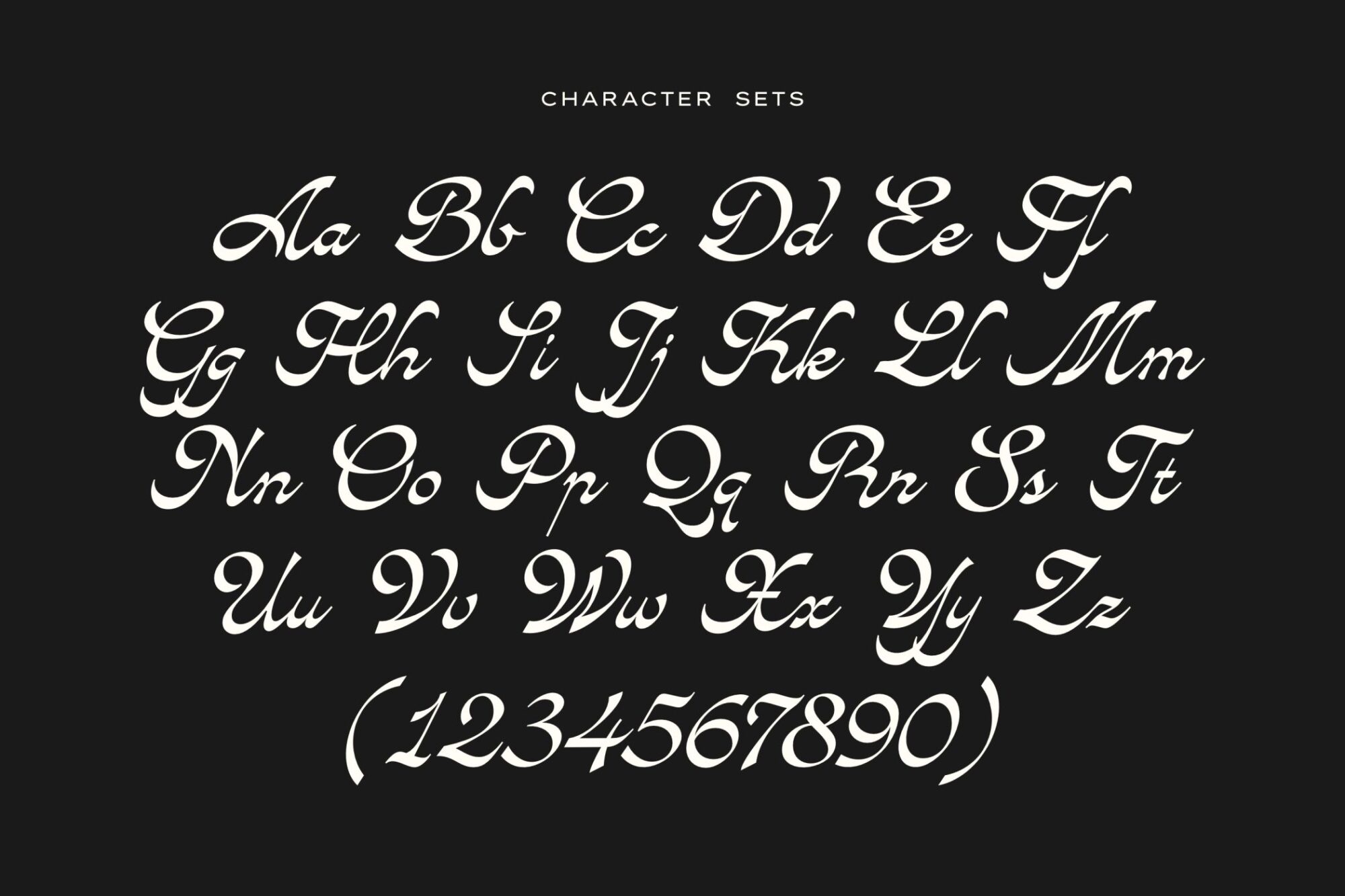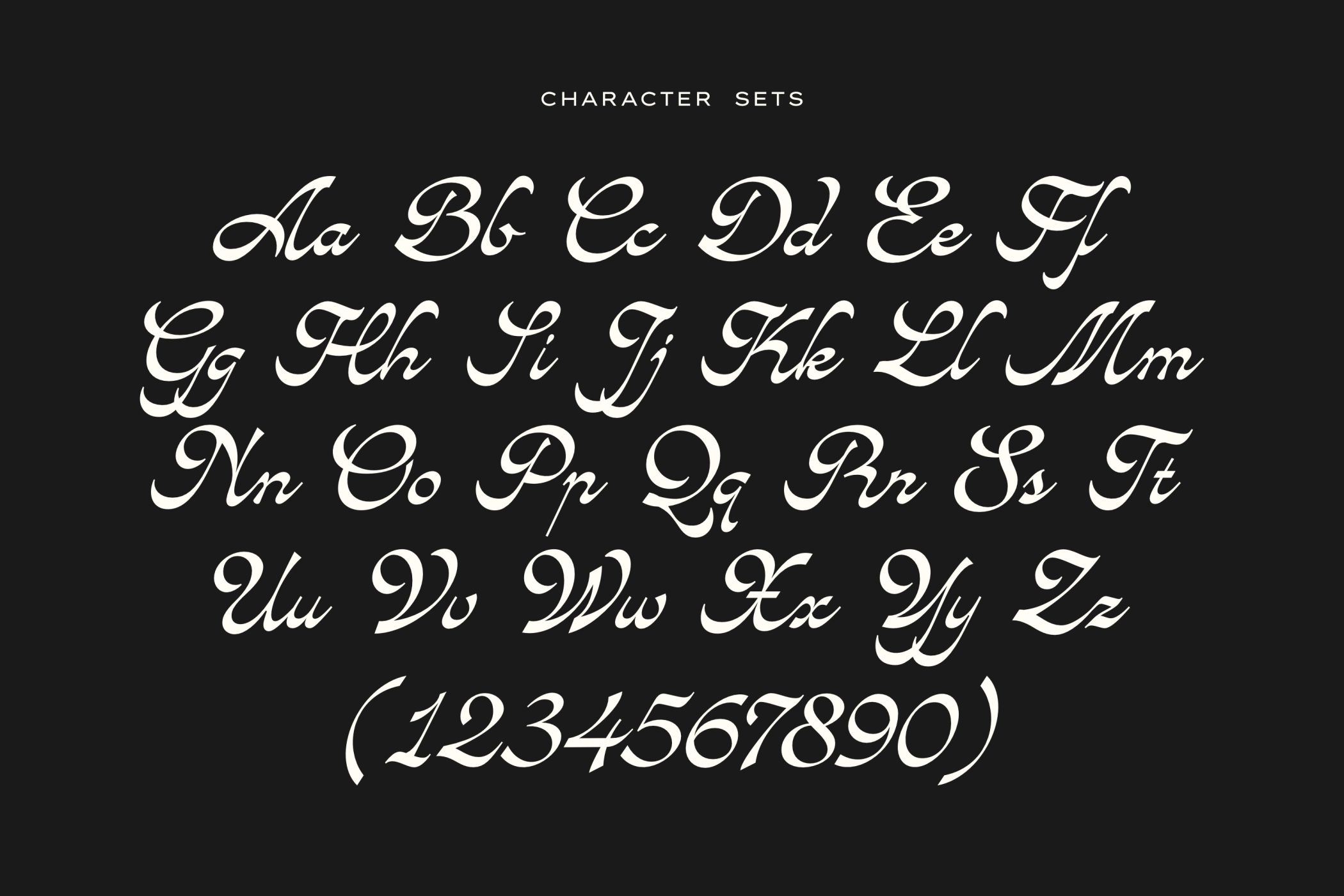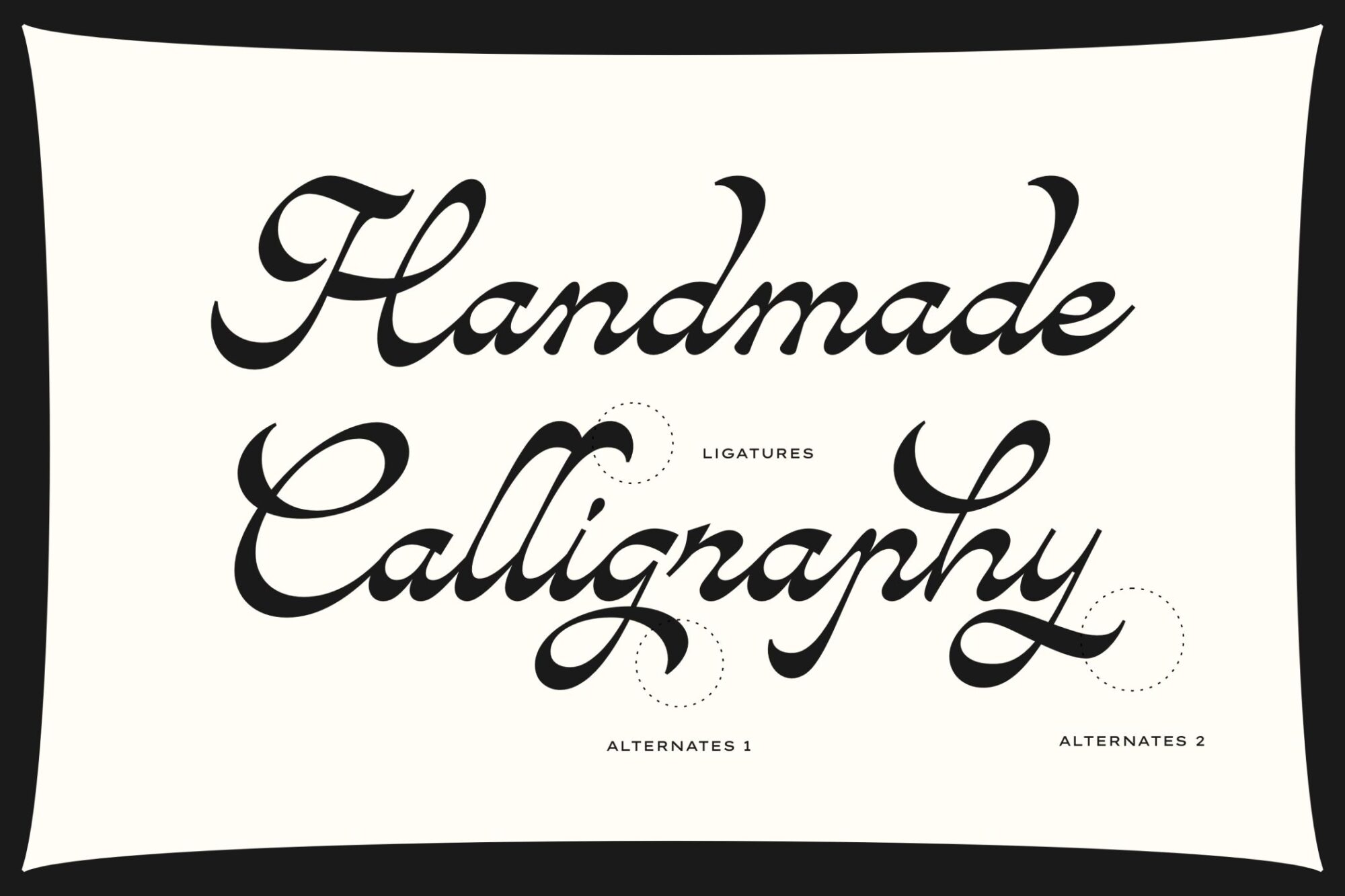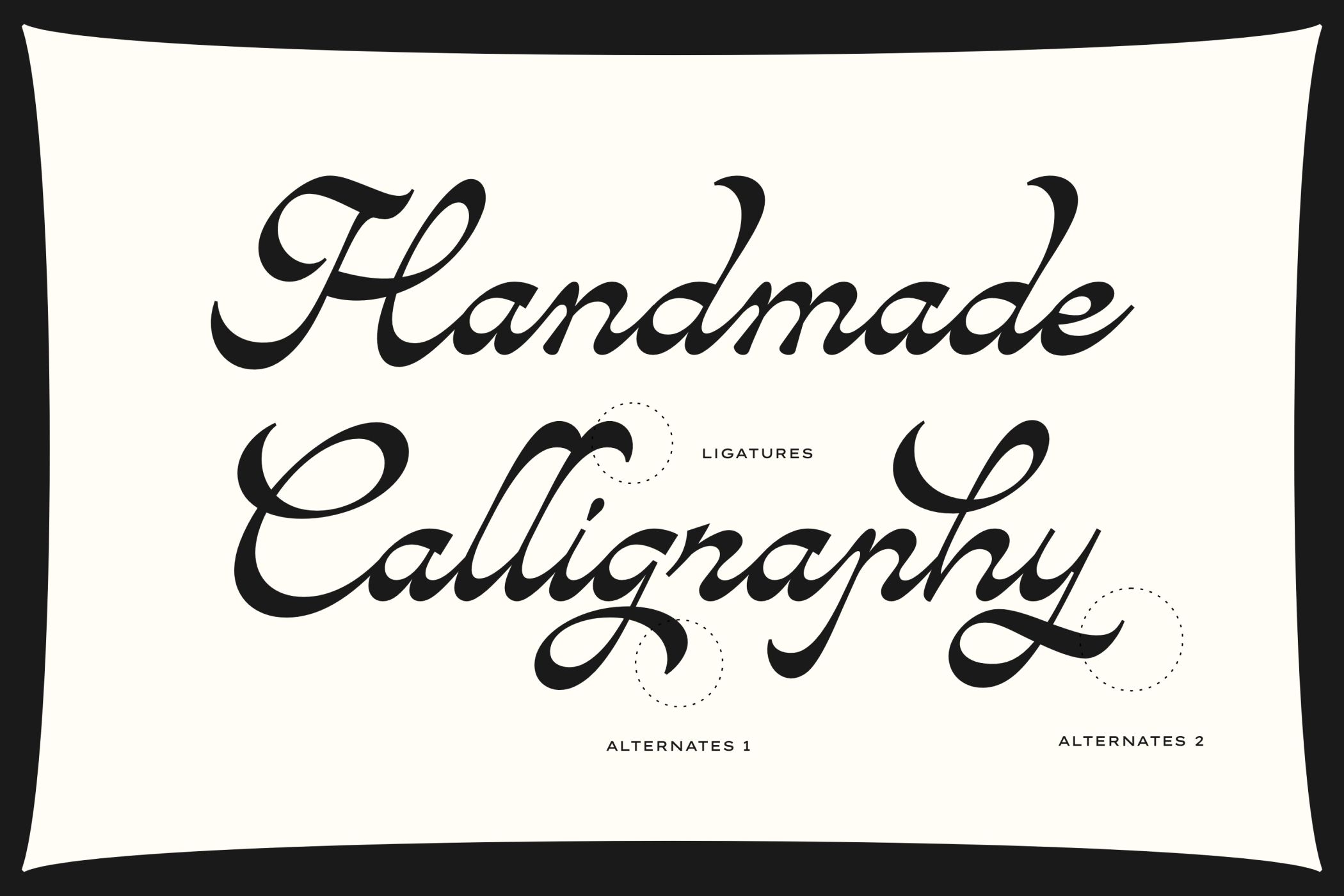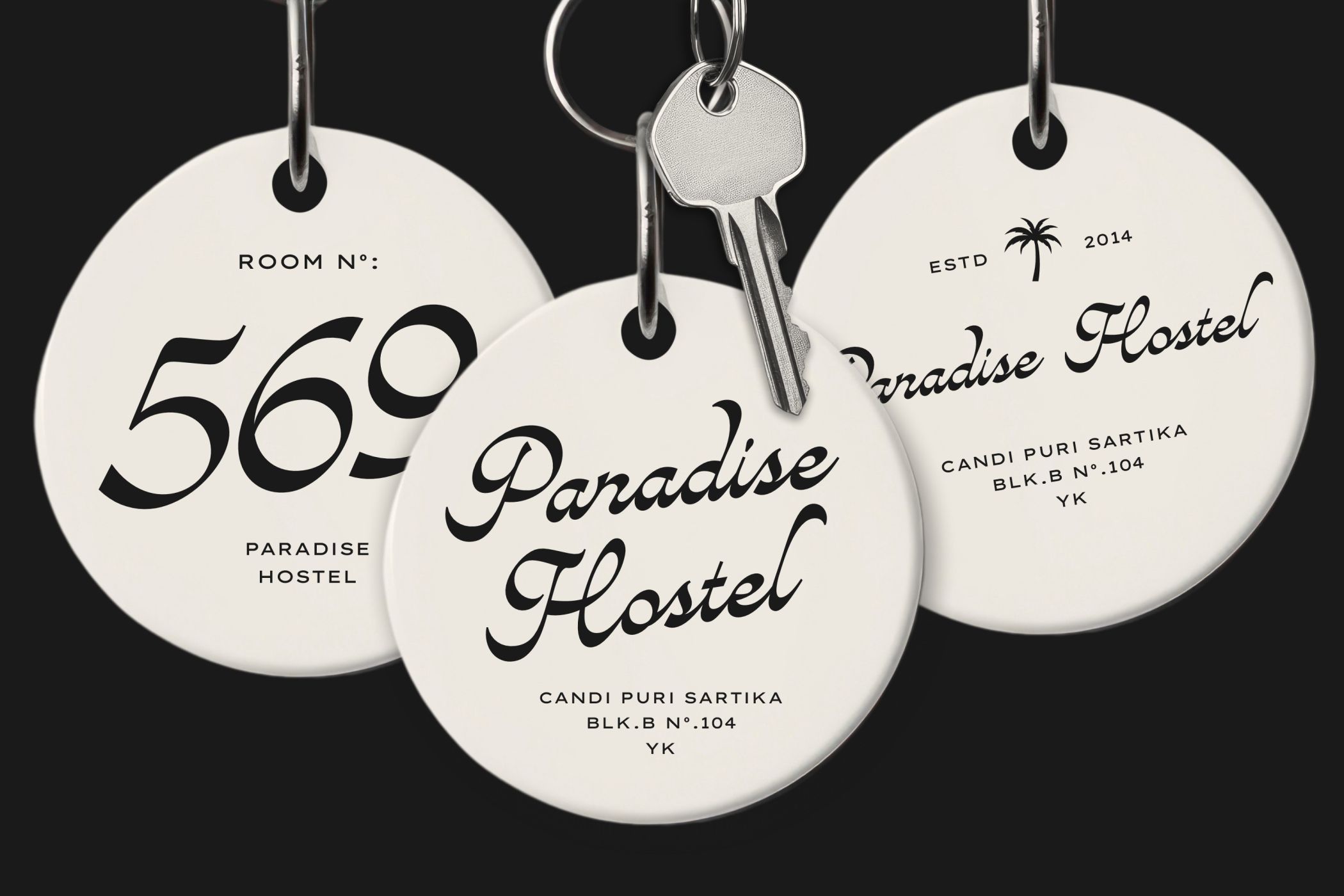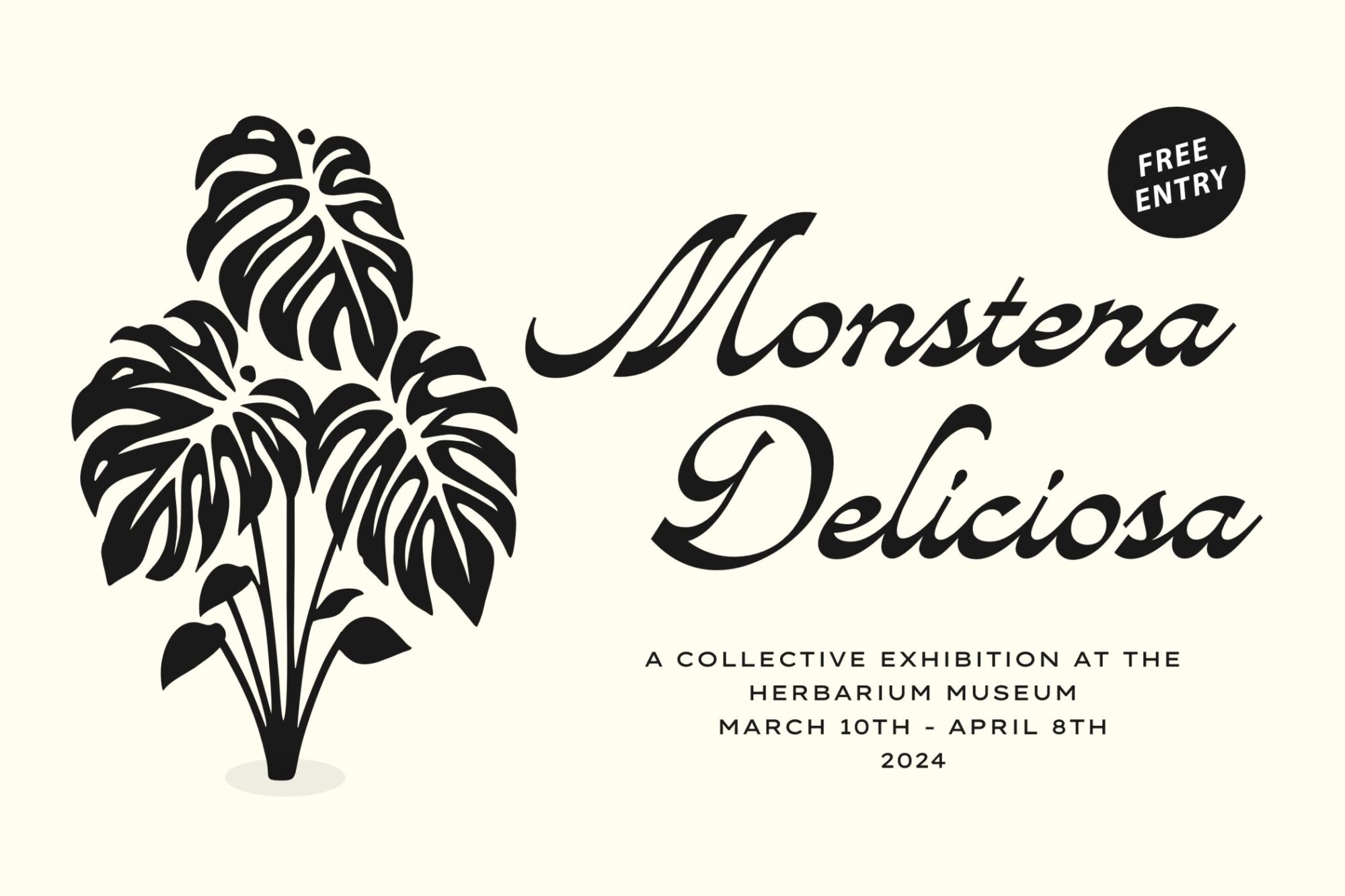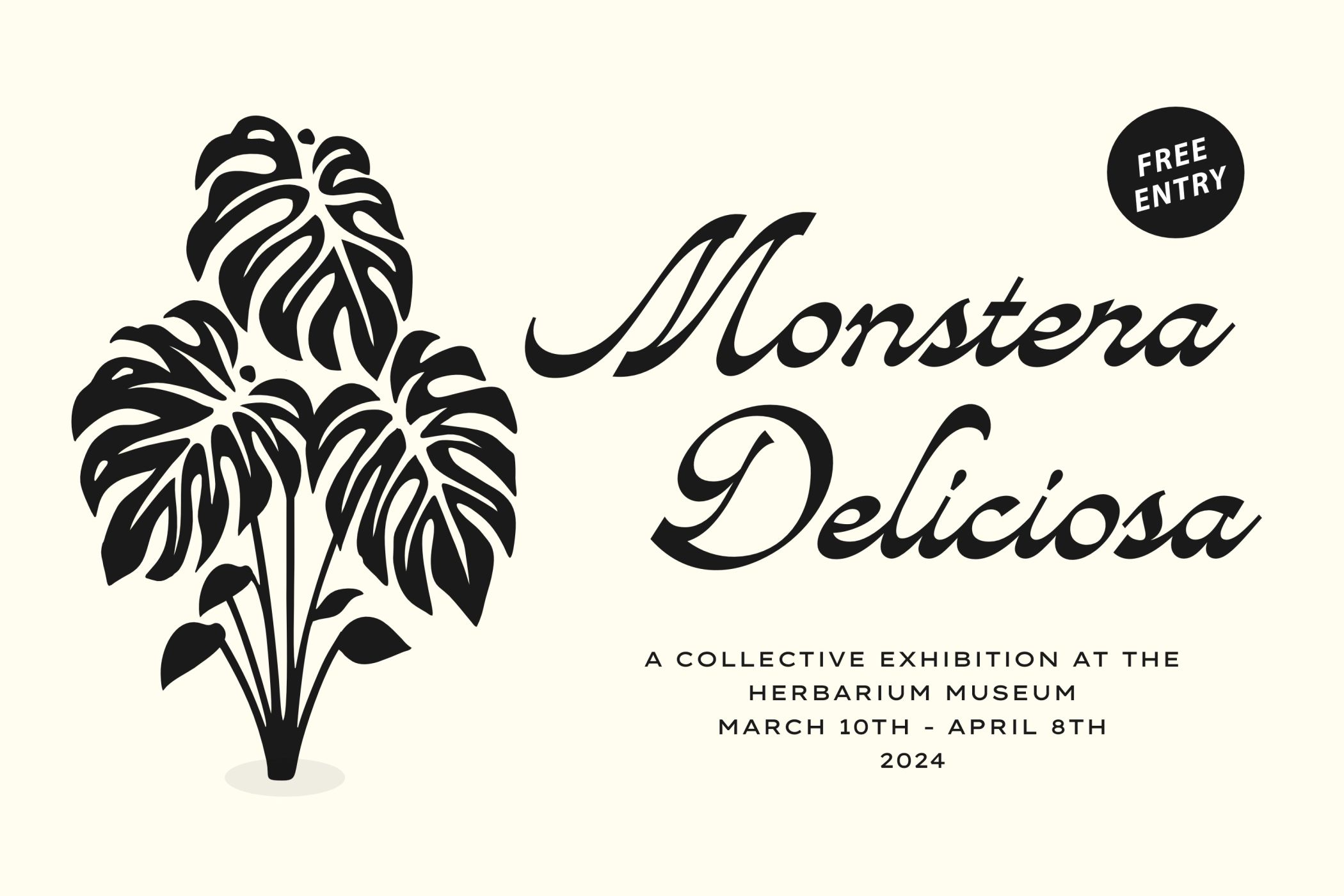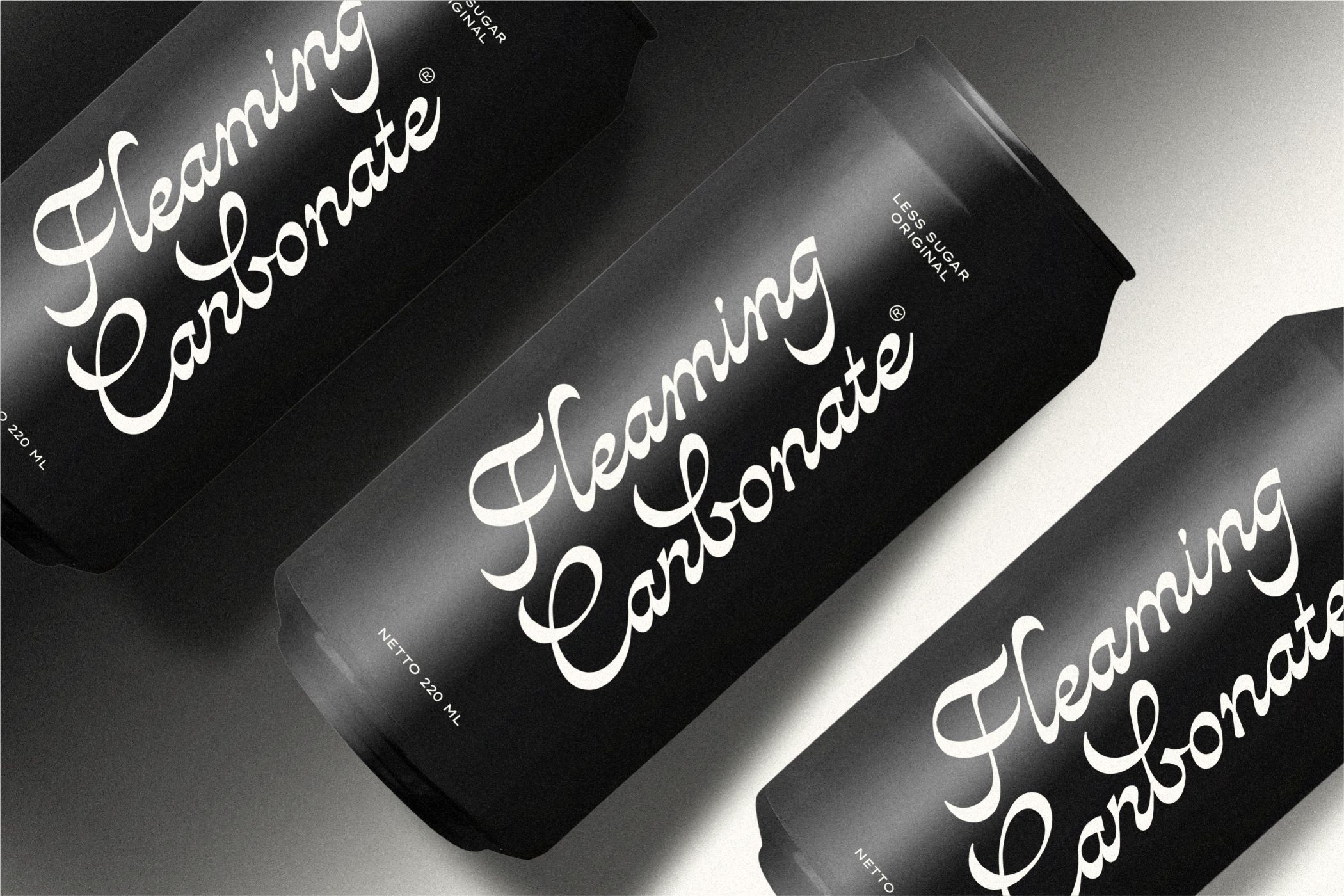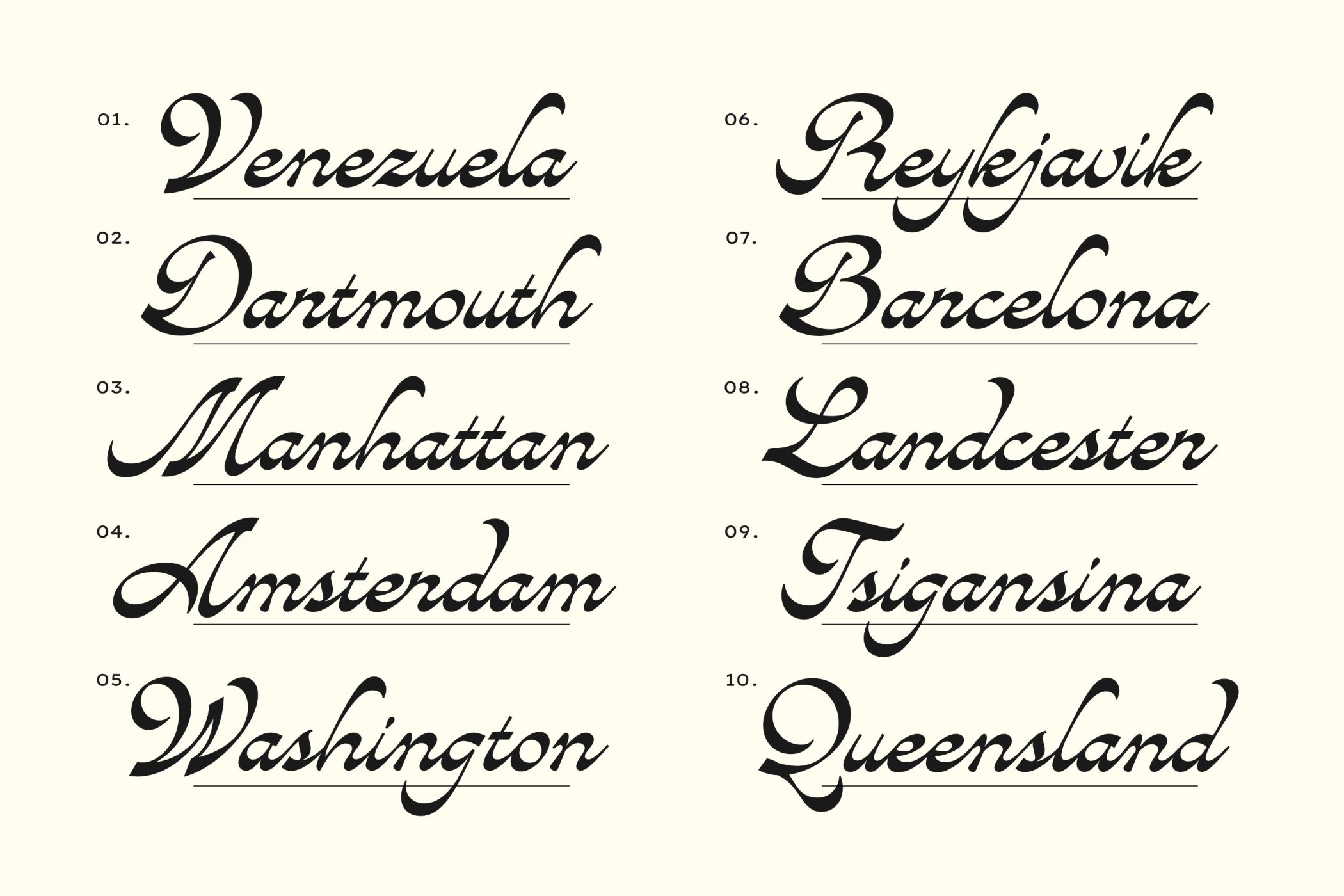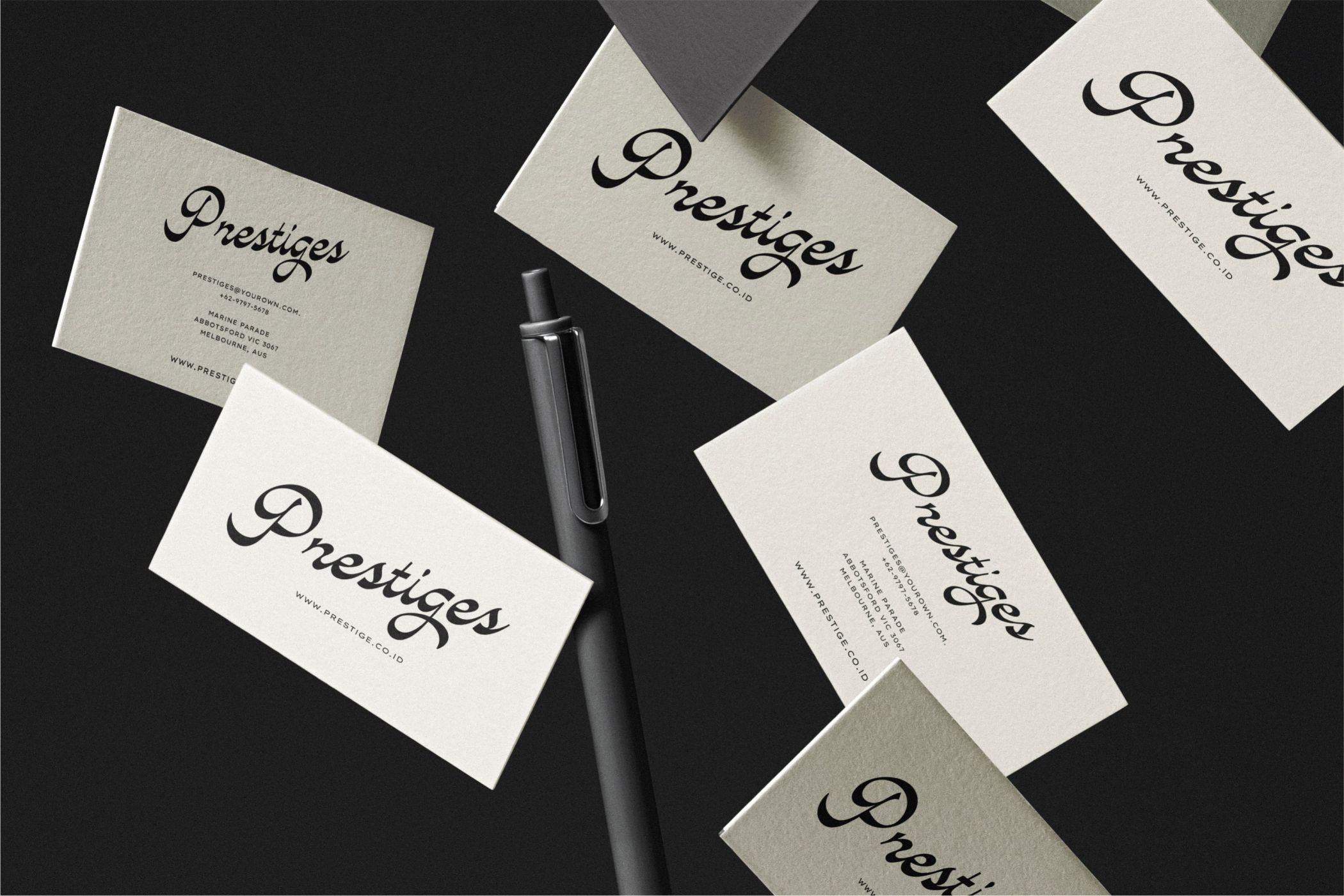
Avantgarde
Introducing, Avantgarde! A modern and stylish script font.
Included Alternates to add more stylistic looking Avantgarde is a versatile font,
perfect for Headline, Logo design, Clothing Branding, product packaging, magazine headers,
or simply as a stylish text overlay to any background image.